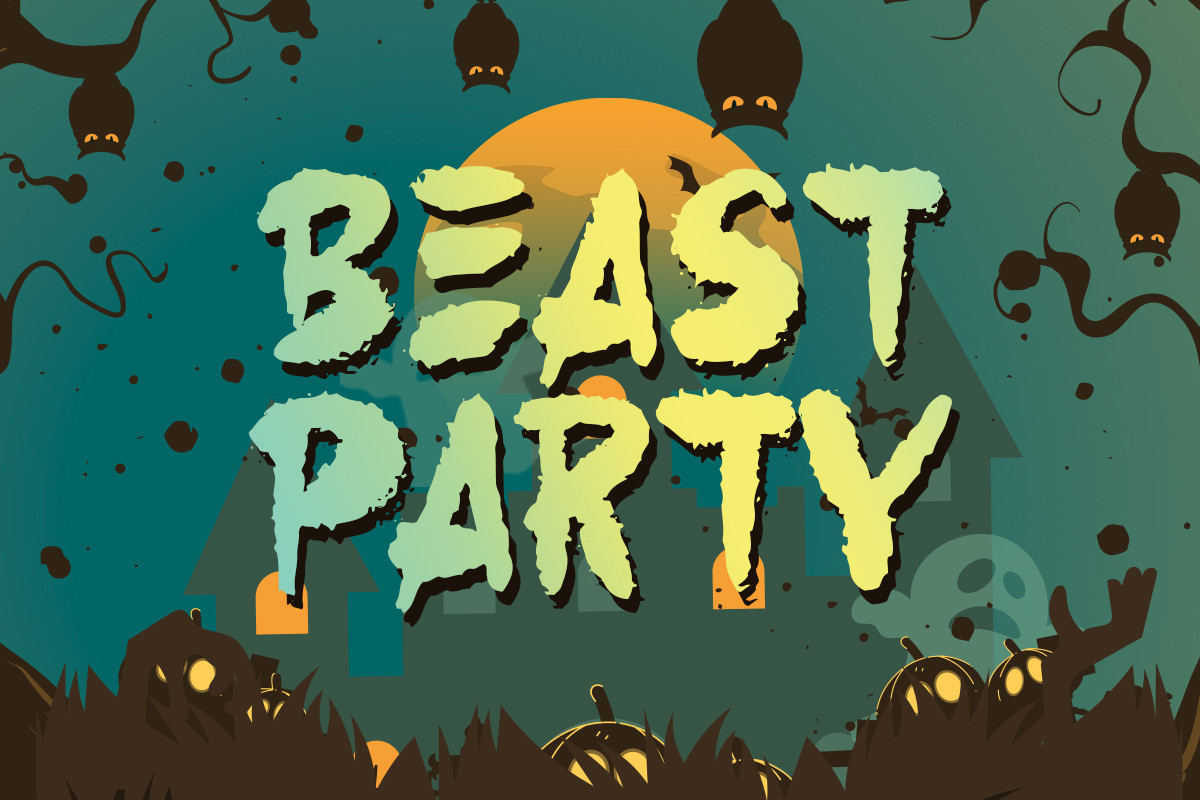
Beast Party Font
The Beast Party Font is perfect for wild nightclub branding, energetic music festival posters, extreme sports events, beast mode fitness campaigns, party animal merchandise, aggressive gaming graphics, monster truck rally promotions, and high-energy entertainment venues. This fierce typeface brings untamed party energy and primal celebration power to any design project requiring raw excitement and savage fun.
What makes the Beast Party Font so exciting is its explosive combination of wild animal ferocity with unstoppable party energy through letterforms that seem to roar with celebration and pulse with primitive rhythm. The font features aggressive shapes, jagged edges, and beast-like characteristics that evoke the primal excitement of unleashing your inner party animal and celebrating with savage intensity and uncontrolled joy.
The Beast Party Font family includes regular, bold, condensed, and distressed variations, along with party symbols, beast-inspired ornaments, and wild decorative elements, providing designers with comprehensive tools for creating fierce party brand experiences and savage celebration design communications that capture untamed festive spirit.
Unleash your party beast with the Beast Party Font Free Download. This ferocious typeface has become the weapon of choice for nightlife promoters, extreme entertainment brands, and high-energy event organizers who need typography that matches the savage intensity of epic celebrations. The font features complete character support including uppercase and lowercase letters, numerals, punctuation, and beast party-themed symbols.
Whether you're developing branding for wild nightlife venues, creating materials for extreme party events, or designing graphics for beast mode fitness challenges, this font delivers unmatched savage energy. The aggressively crafted letterforms maintain excellent readability while conveying the primal excitement and unstoppable party spirit that resonates with audiences who live for epic celebrations and extreme fun.
Entertainment professionals appreciate the font's authentic representation of party culture's wild side without crossing into inappropriate territory. The beast-inspired design elements create genuine excitement and energy while helping brands establish connections with audiences who embrace their inner party animal and seek unforgettable celebration experiences.
The Beast Party Font excels in applications where high energy and celebration intensity are essential, from nightclub promotions to extreme sports party marketing. The font's savage heritage makes it particularly effective for brands that promise epic, unforgettable experiences and encourage people to unleash their wildest celebratory instincts.